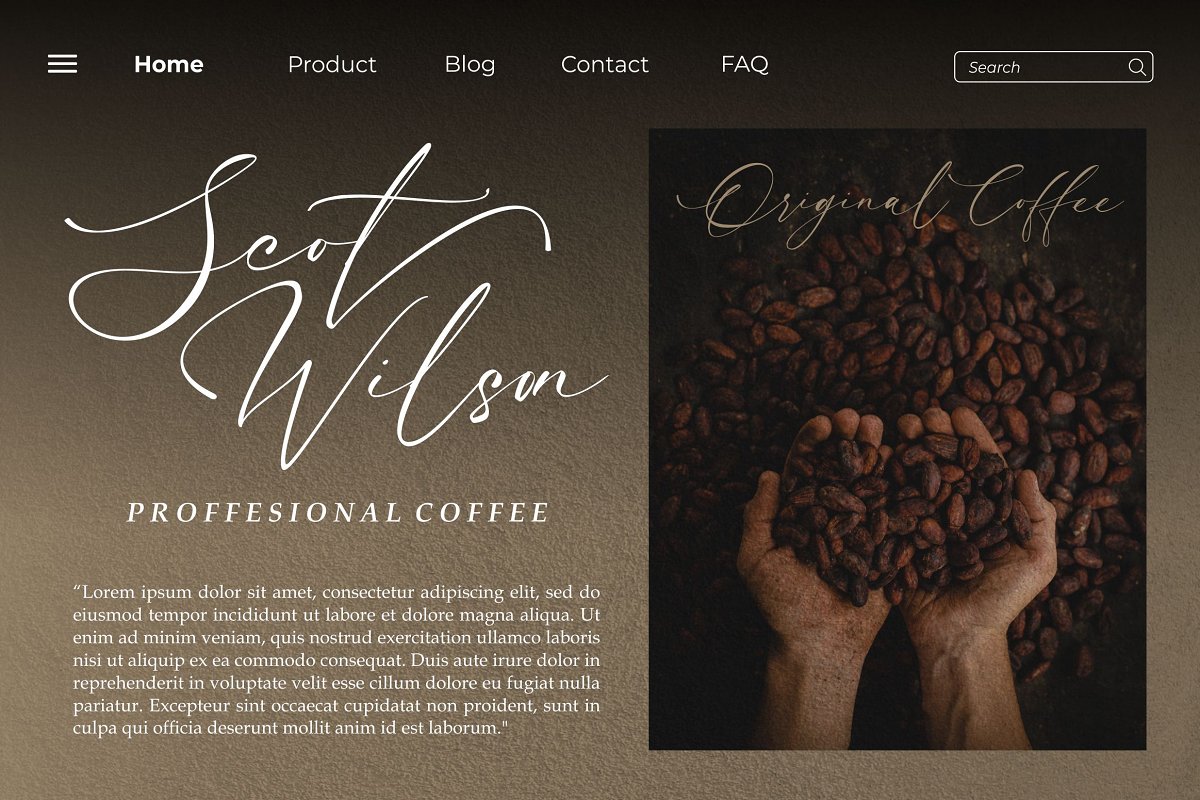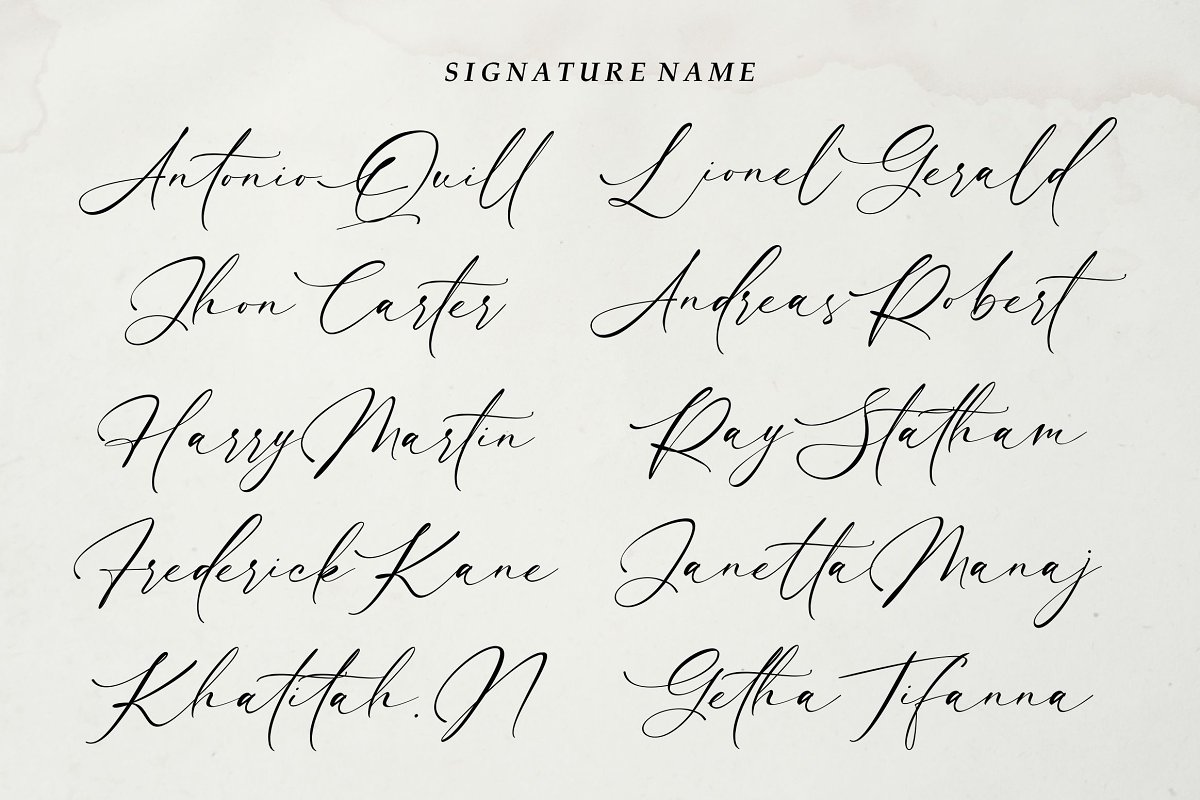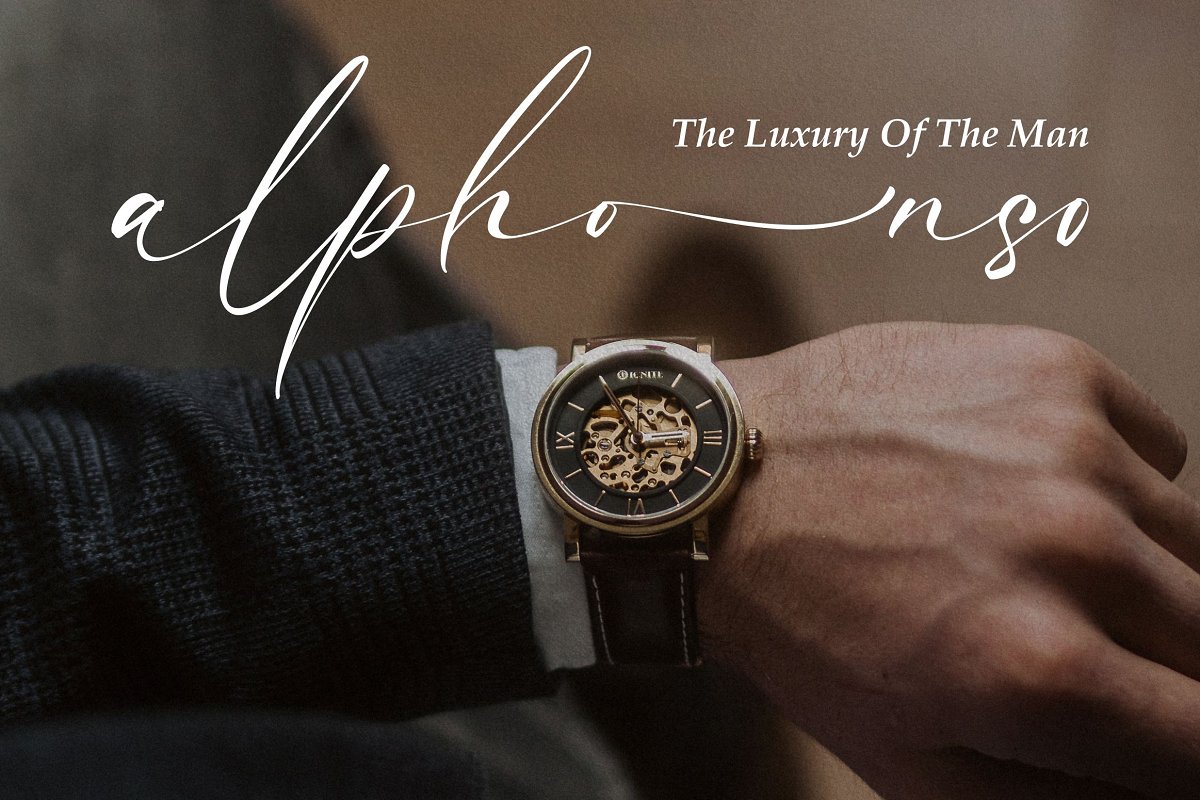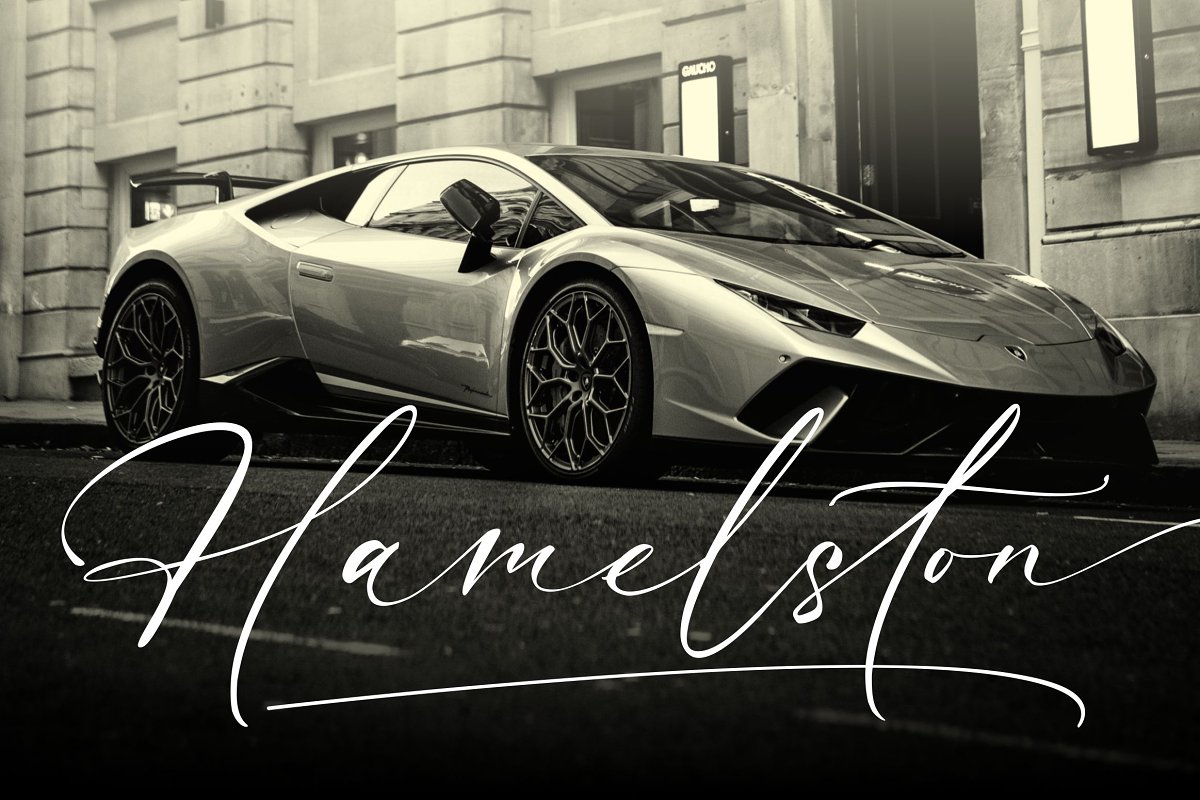
About the Luxury Modish Modern Calligraphy Font
Luxury Modish is Modern Calligraphy font presentation from Ergibi Studio, Inspired by beautiful writing that has a luxurious feel with additional swash linesThis font includes uppercase, lowercase letters, numbers, punctuation, symbols, swash and multilingual support, Luxury Modish is perfect for branding, photography, invitations, quotes, watermarks, advertisements, product designs, social media posts, stationery, labels, and more!I hope you enjoy this font